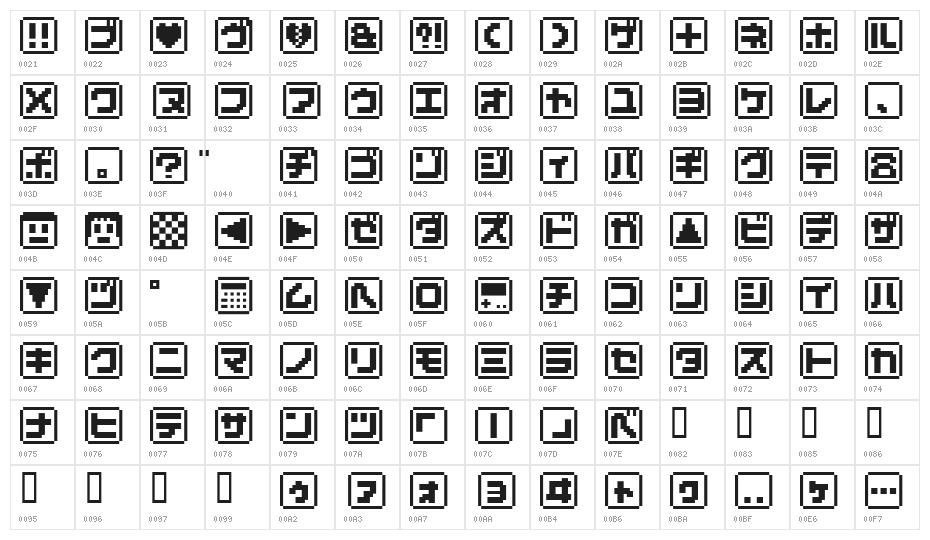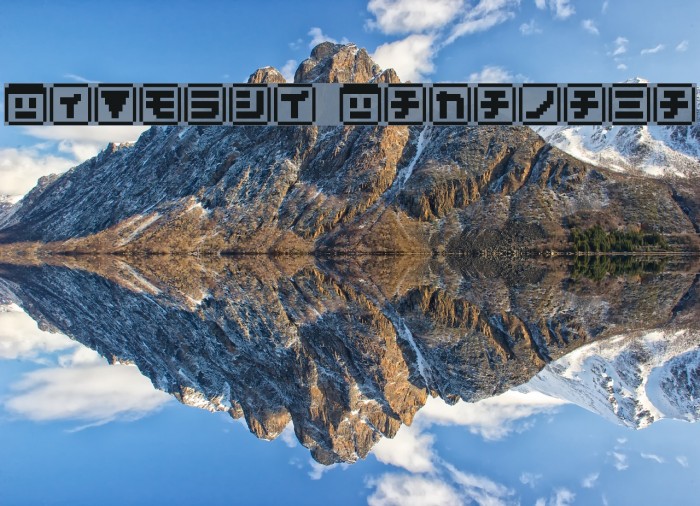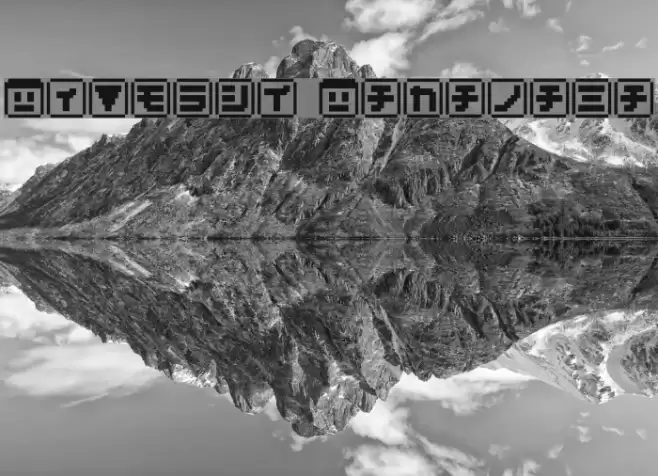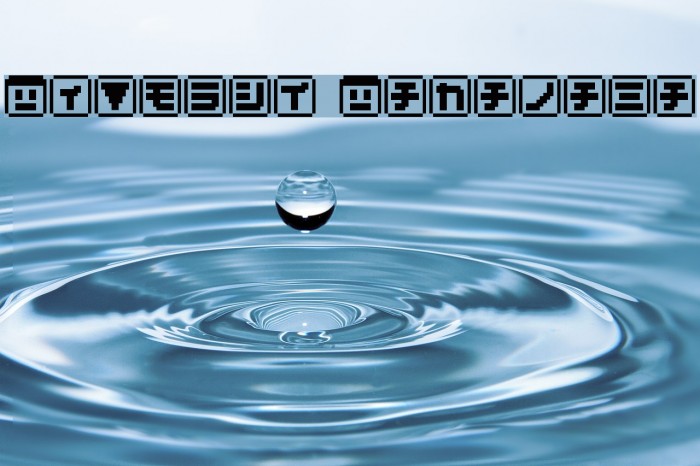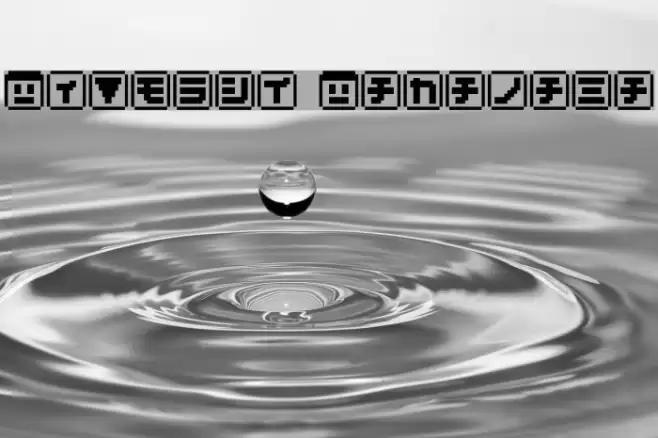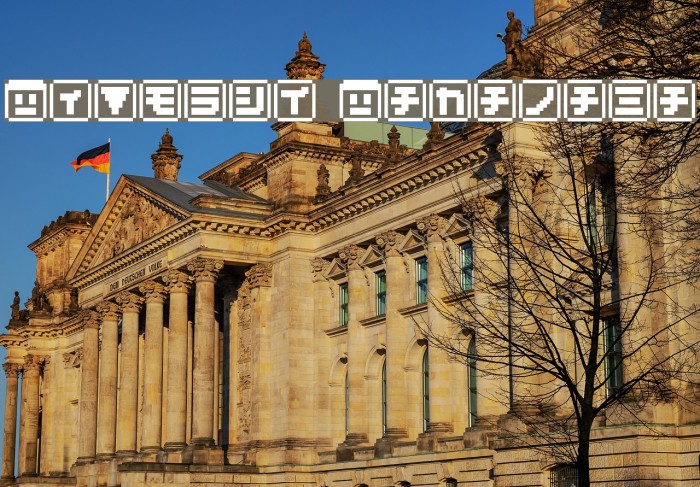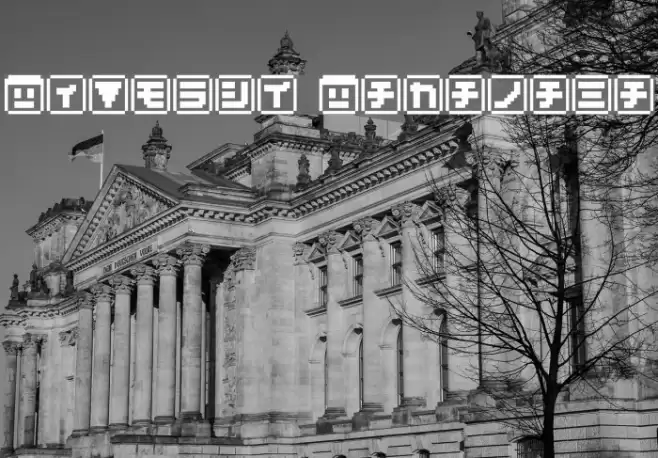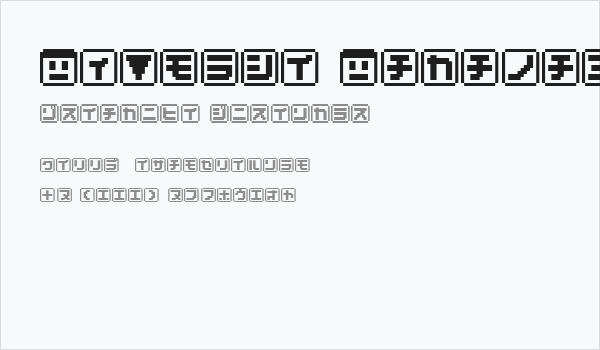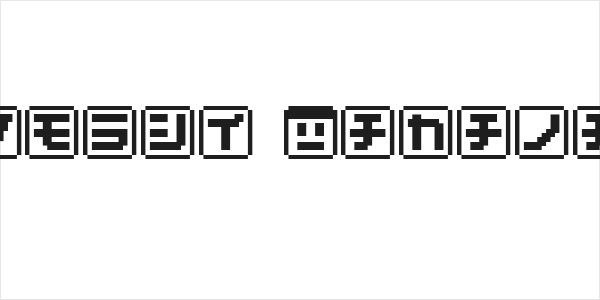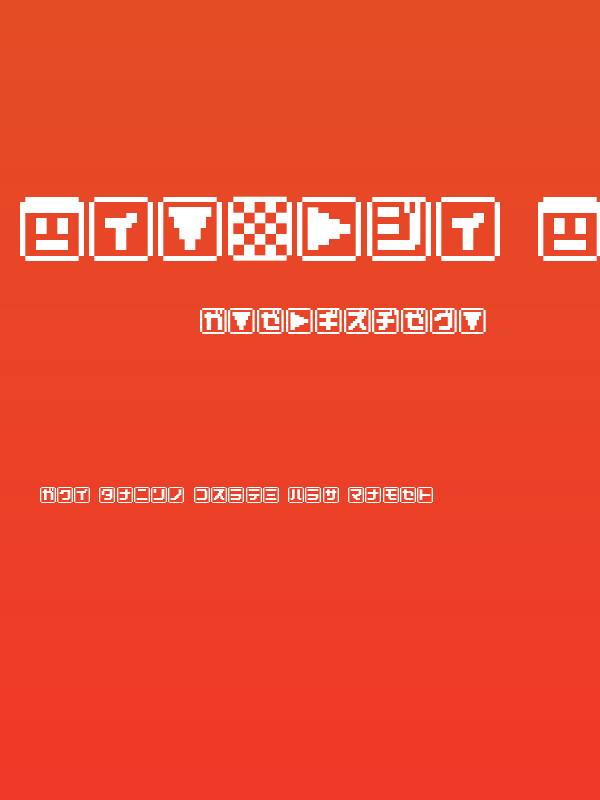
KEYmode Katakana Font
KEYmode Katakana Description
This font features a bold, pixelated design reminiscent of retro video games and digital displays. Each character is enclosed in a square, giving it a distinct, blocky appearance. The style is highly geometric, with sharp edges and uniform line thickness, creating a cohesive and structured look. The characters are evenly spaced, maintaining a consistent rhythm across the text. This font is ideal for projects that aim to evoke a sense of nostalgia or a digital, tech-inspired aesthetic. Its unique style makes it stand out, making it suitable for creative and playful designs.
| Proposed Projects | Video game graphics, retro-themed posters, digital art, tech branding. |